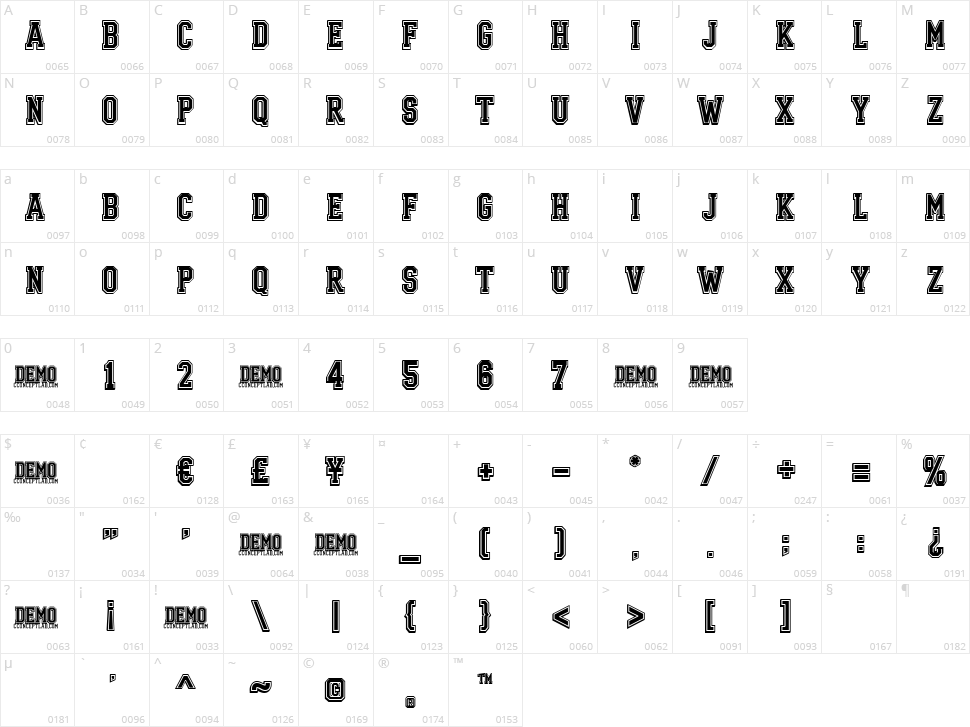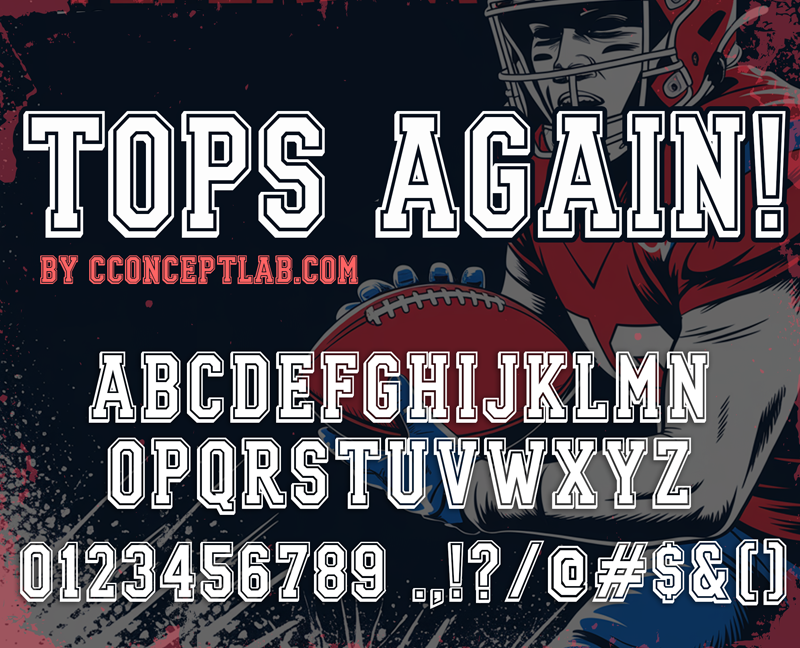
TOPS AGAIN!
College theme typeface with a clean special shadow styles perfect for your university tshirts, posters, and other sporty projects.
All Capital letters. 100% free for personal use only, accepts donations :)
College theme typeface with a clean special shadow styles perfect for your university tshirts, posters, and other sporty projects.
All Capital letters. 100% free for personal use only, accepts donations :)